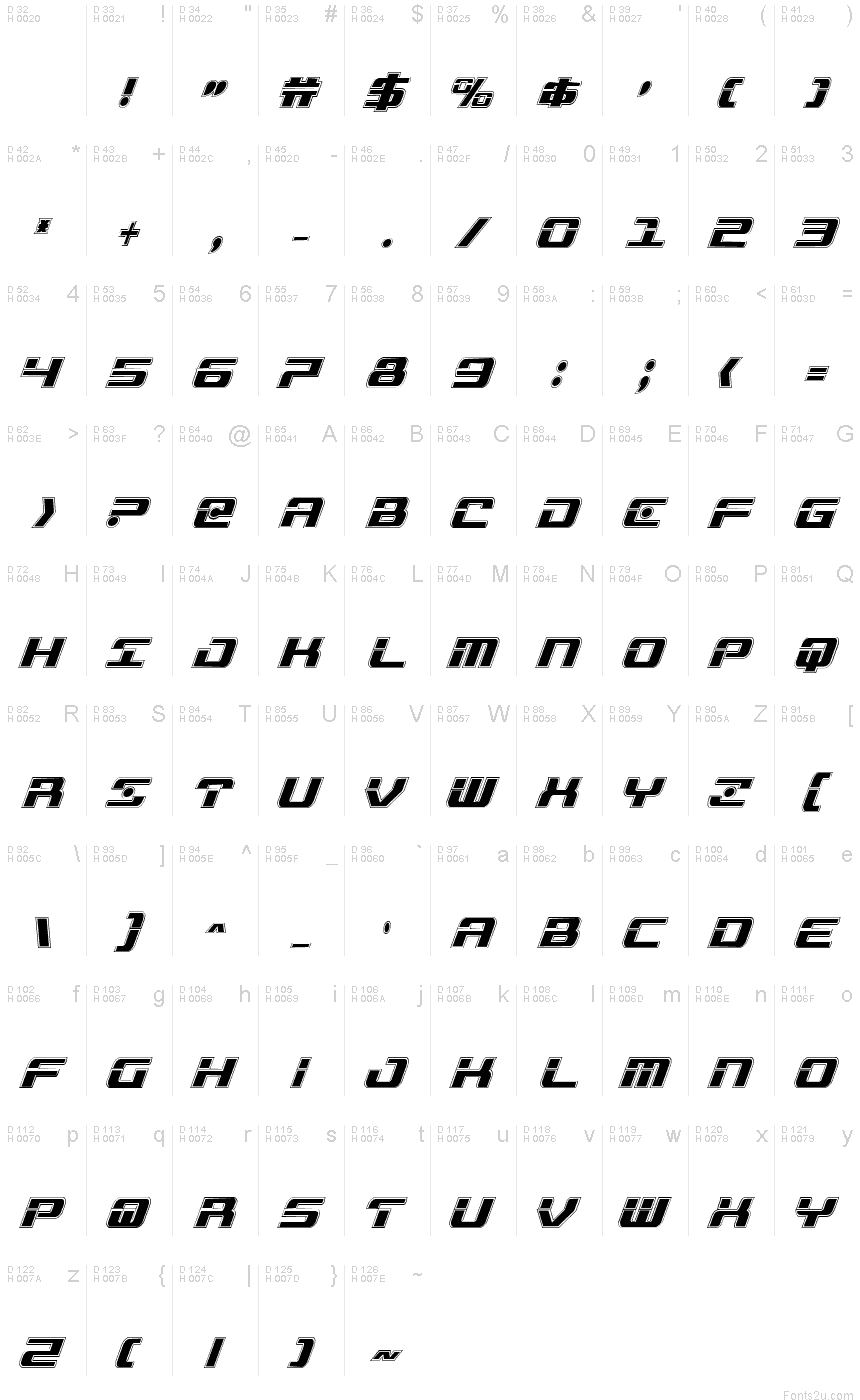
Troopers Academy Condensed Italic by Daniel Zadorozny of Iconian Fonts is a free outlined futuristic display font with a hard motorsport edge. Its forward slant and broad squared curves suggest speed, with clipped joins and narrow openings sharpening the mechanical profile. The double-line treatment is crisp and assertive.
Motorsport posters are its clearest fit, alongside racing game graphics and team merchandise that benefit from lettering shaped like a custom vehicle decal. It also suits automotive branding and event signage, linked by the same fast, engineered silhouette.